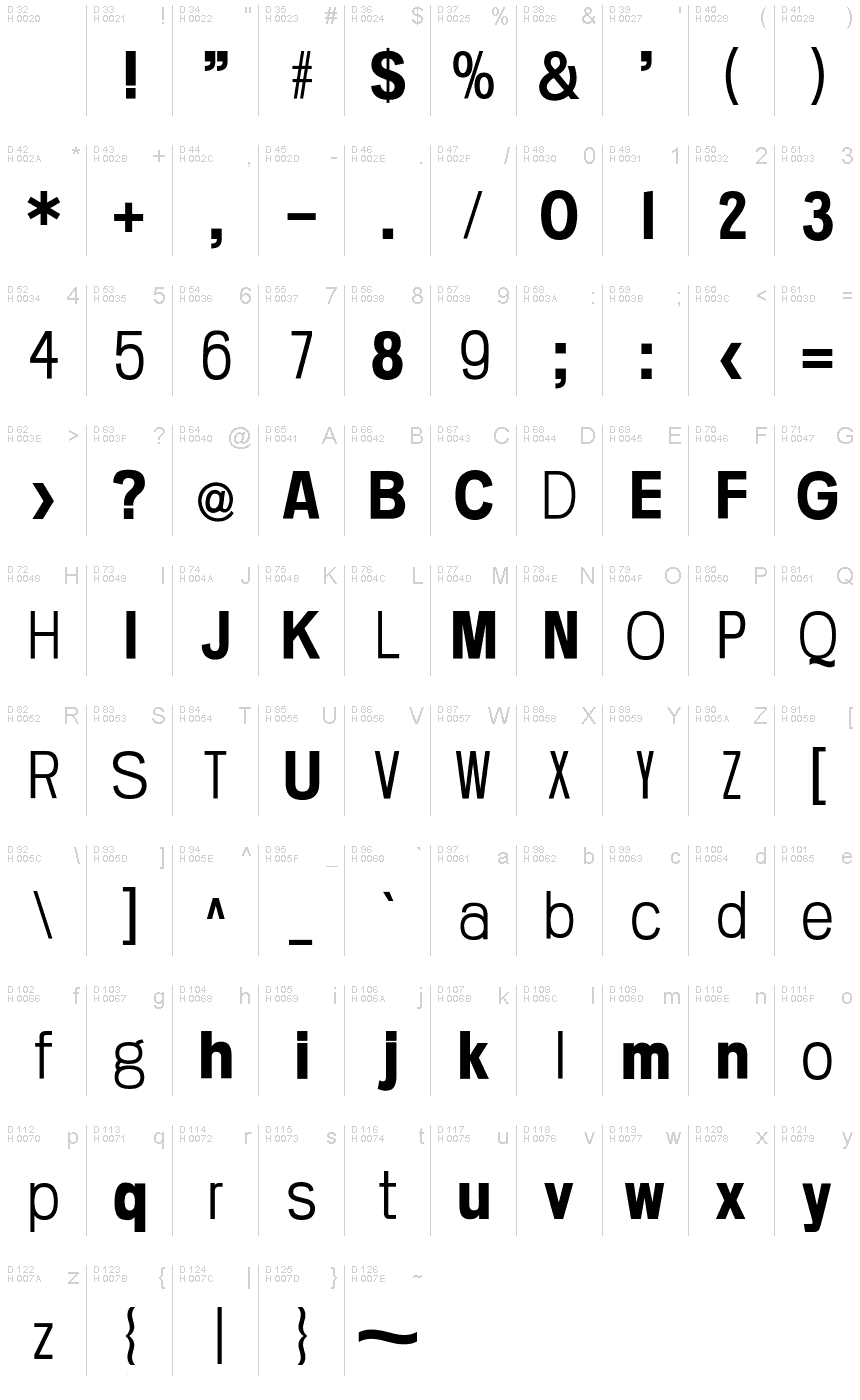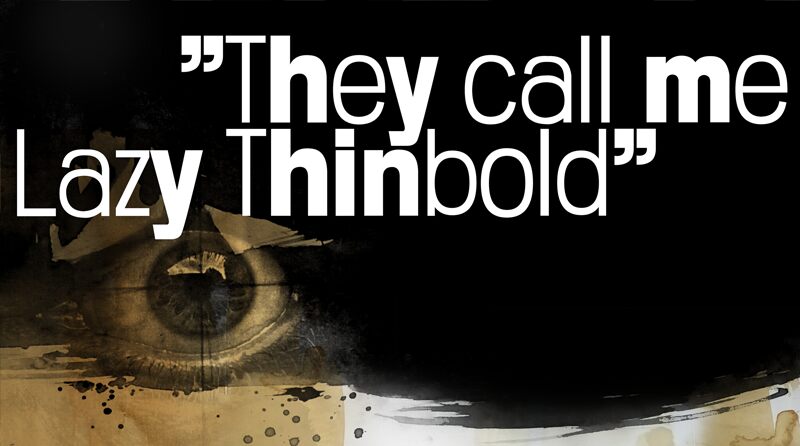
They call me Lazy Thinbold
They Call Me Lazy Thinbold, a unique sans serif font designed by junkohanhero. This font is available in a wide range of widths and styles, making it suitable for many projects. From bold headlines and logos to subtle titles and captions, this versatile font can help make your project stand out! With its modern look and feel, They Call Me Lazy Thinbold is perfect for creating eye-catching designs that are sure to impress.